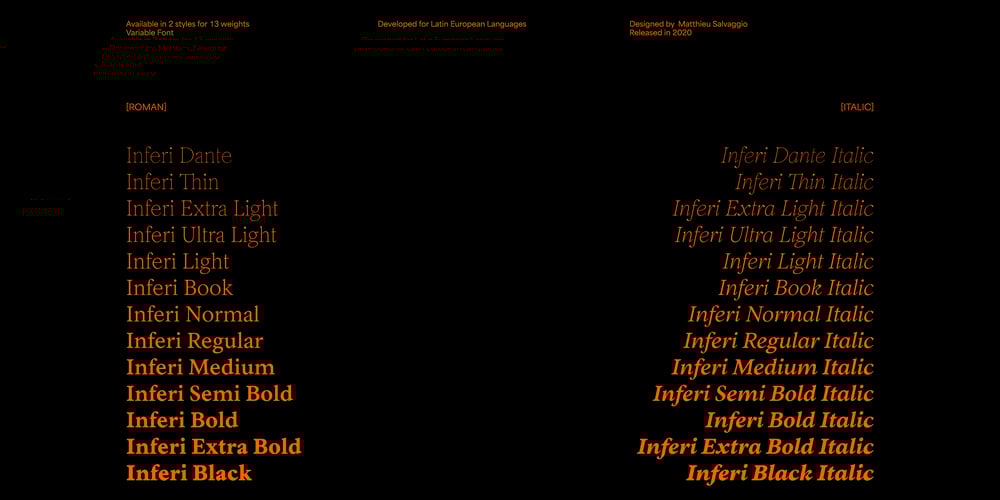
Inferi VF Font Family was designed by Matthieu Salvaggio and published by Blaze Type. Inferi VF contains 2 styles and family package options. Inferi takes its roots in Garalde print like fonts. With its defining features, like squared edges and print letterform it covers a large panel of uses. It has been designed in various styles and weights, allowing one to have an extensive type-tool for any kind of usage. Whether the need would be on book design, poster design or editorial uses, Inferi will be a nice fit to complex type-shaping. If your goal is to reach for a printed-type feeling on digital medium (websites, apps and such), you will find Inferi to be your tool of choice.A well balanced family with squared edges and round finishes in the roman version, the italics cut deep into a more modern approach. Drawn with a careful “hand style” touch. A nice balance for complex layouts as the print style form and the optical grey between roman and italics version will allow for great legibility.